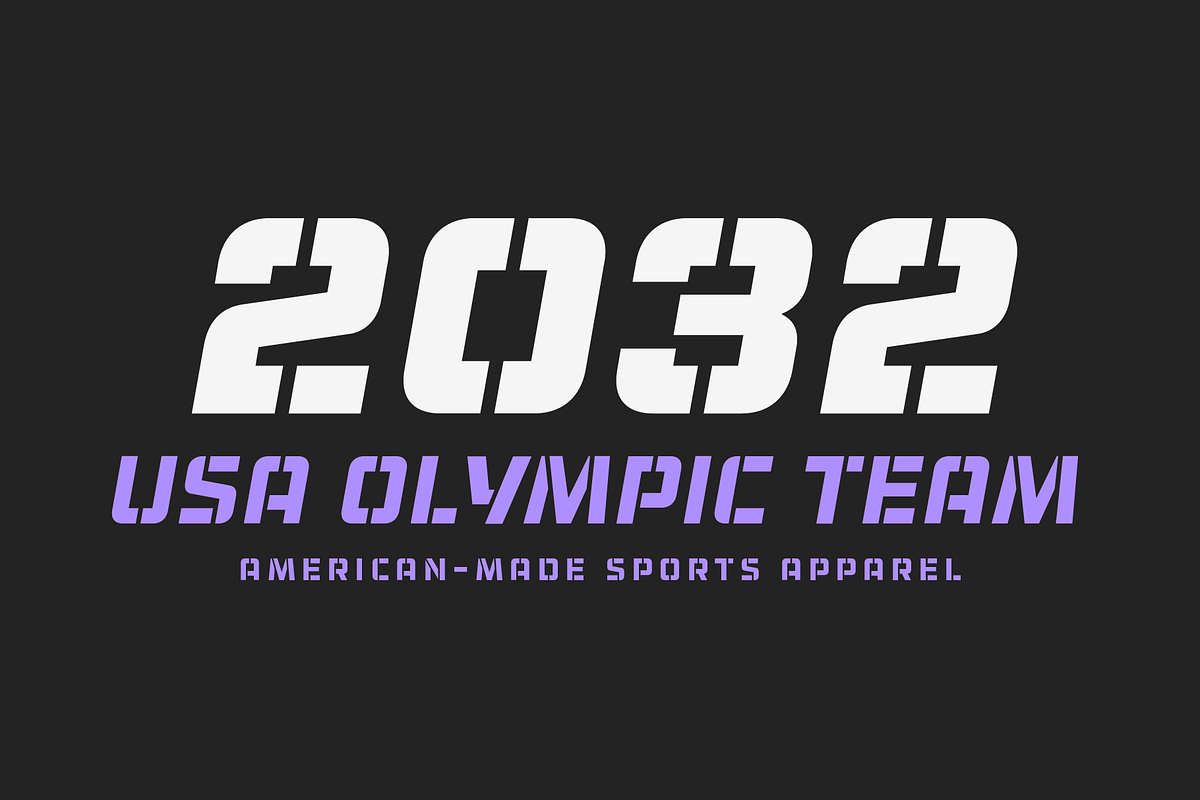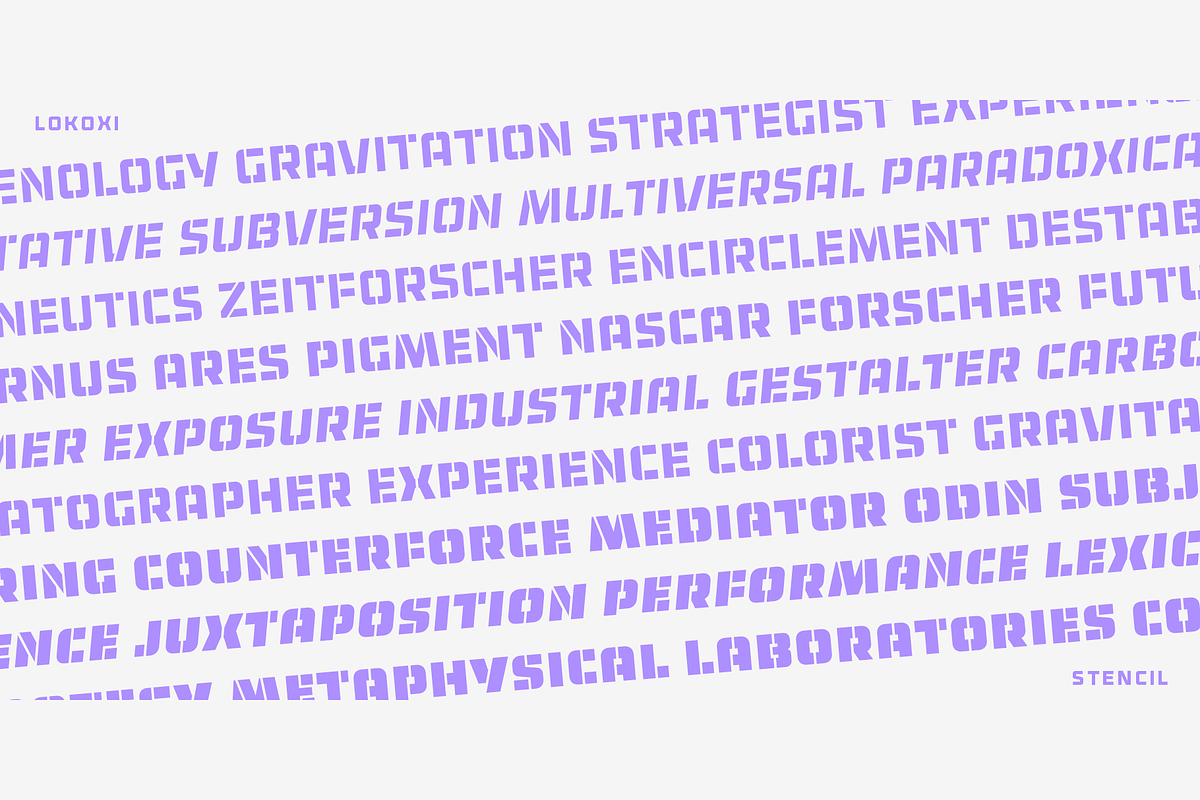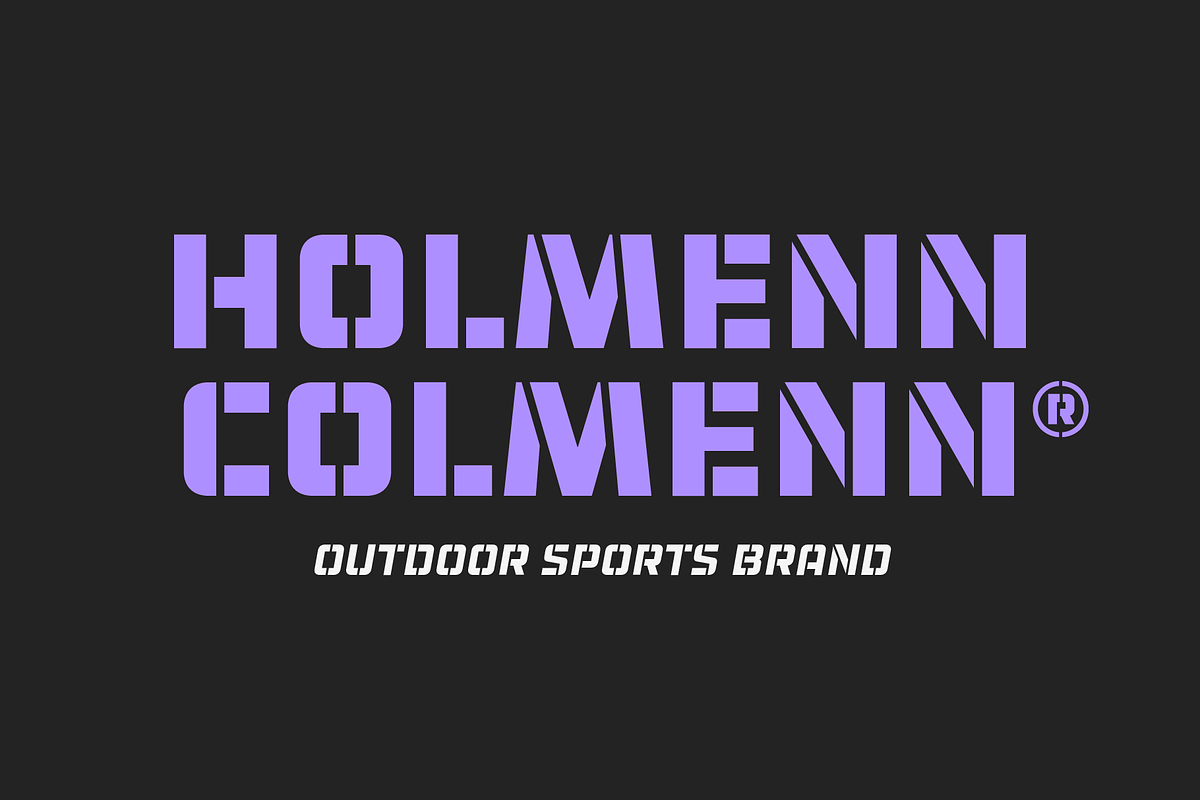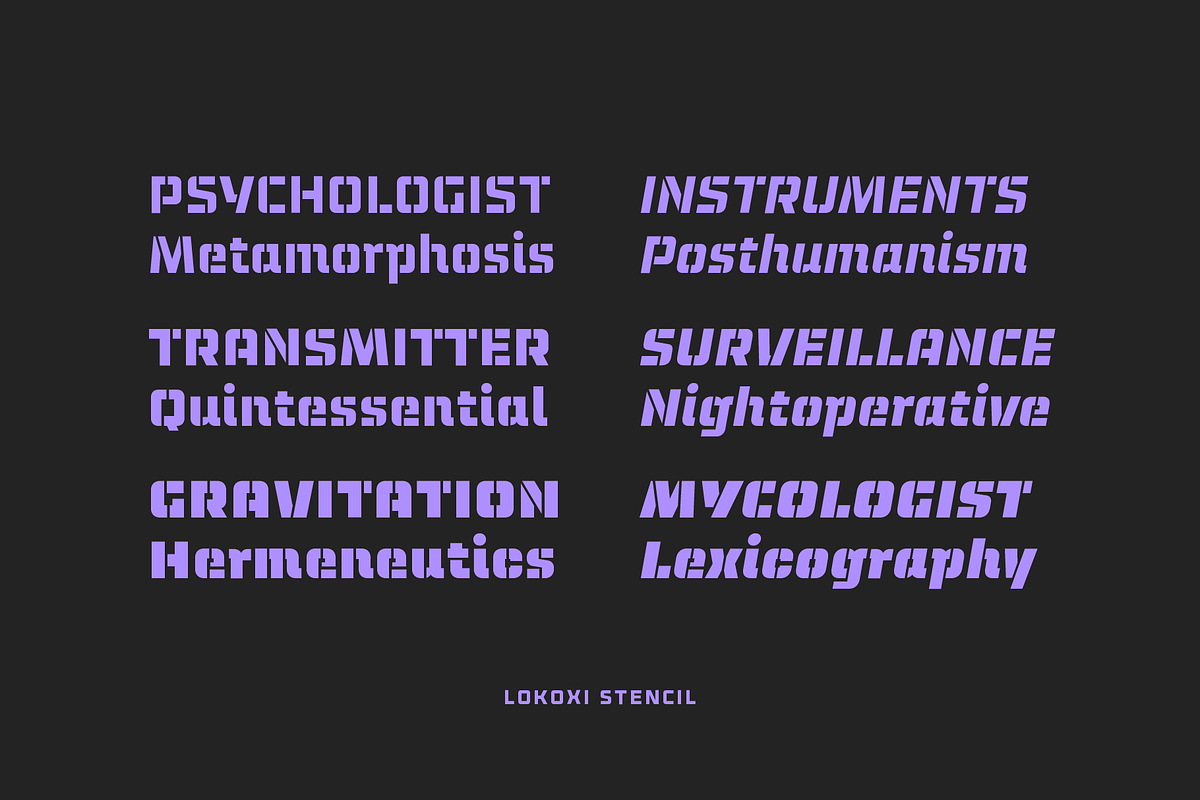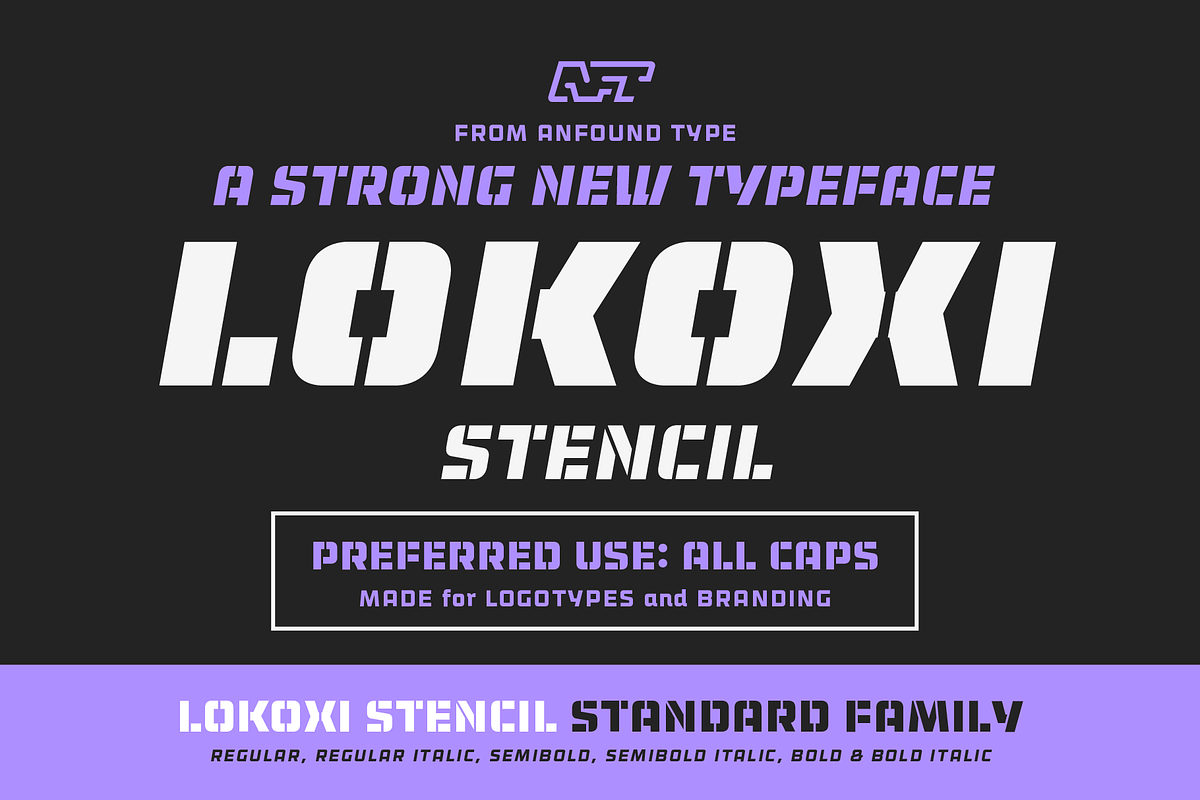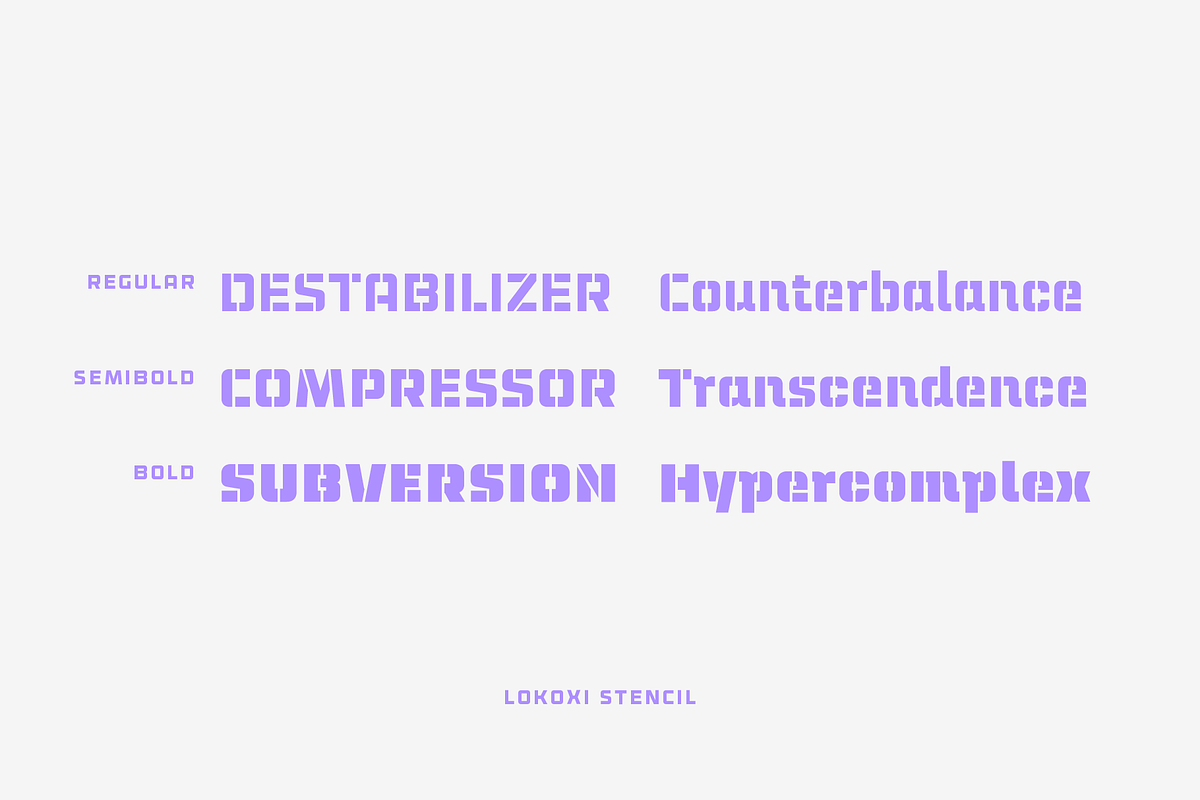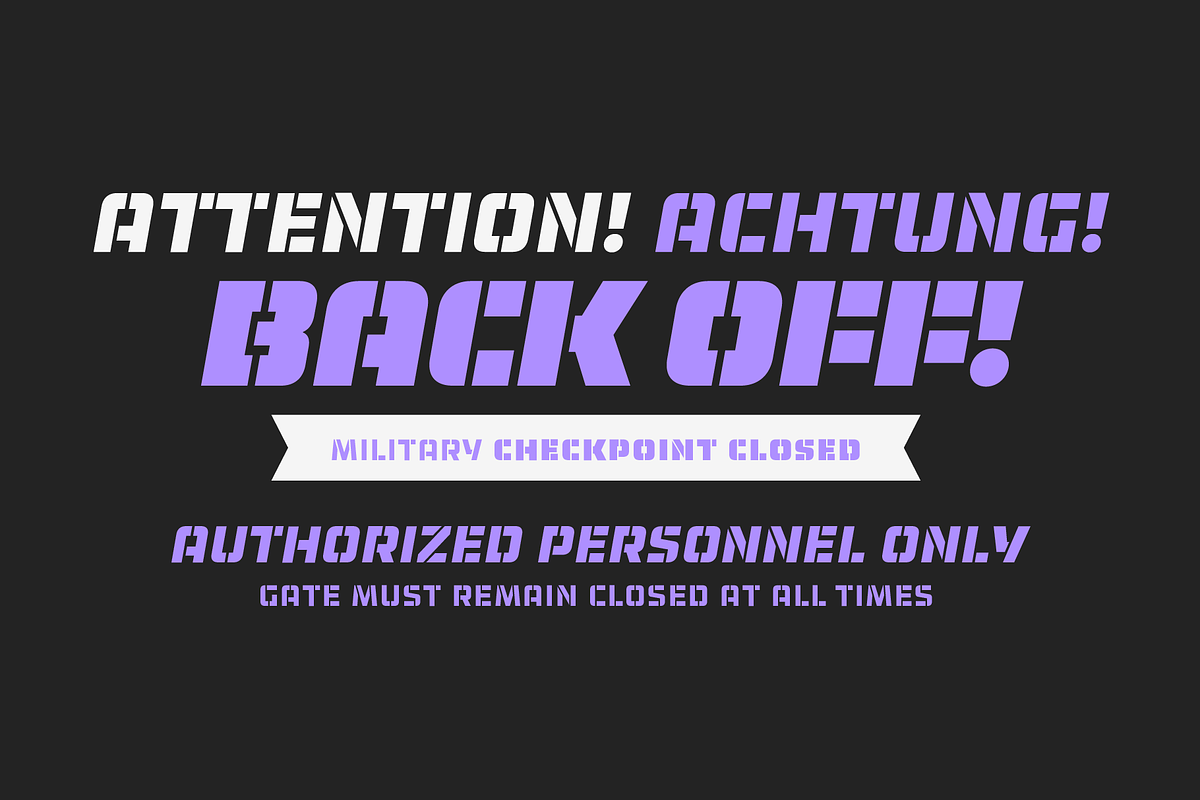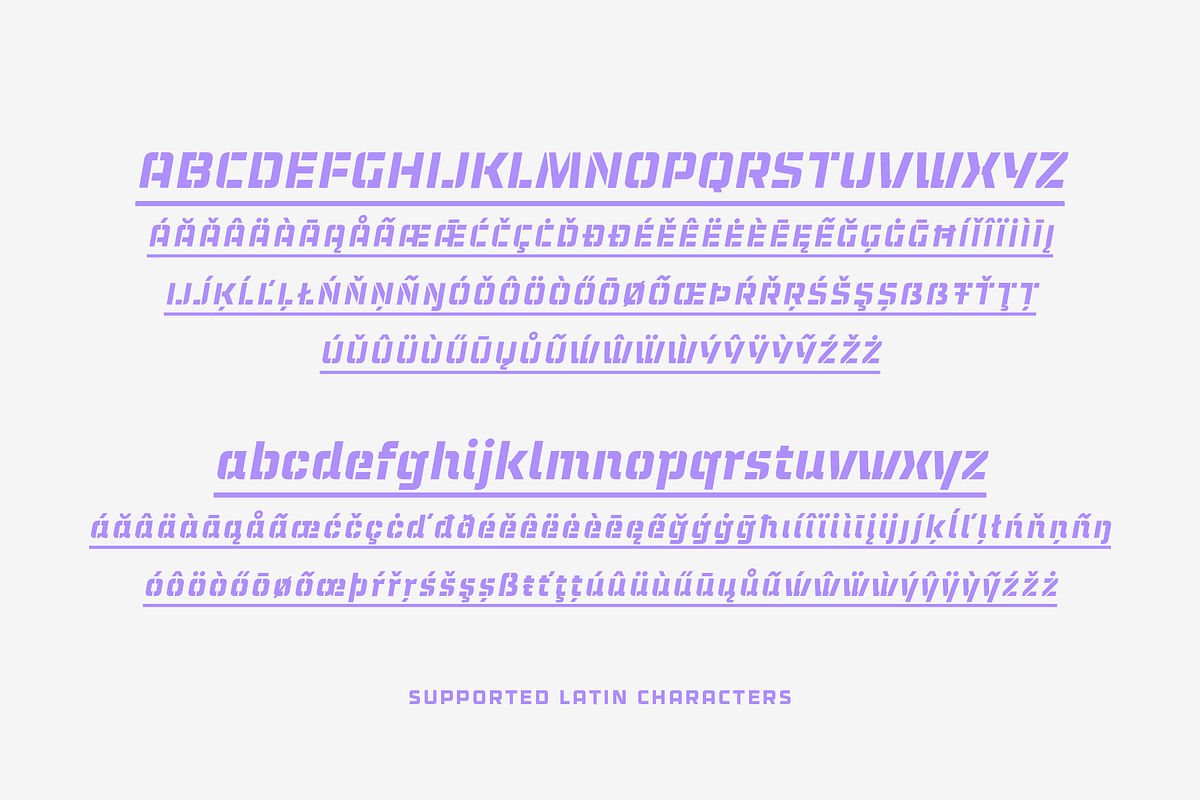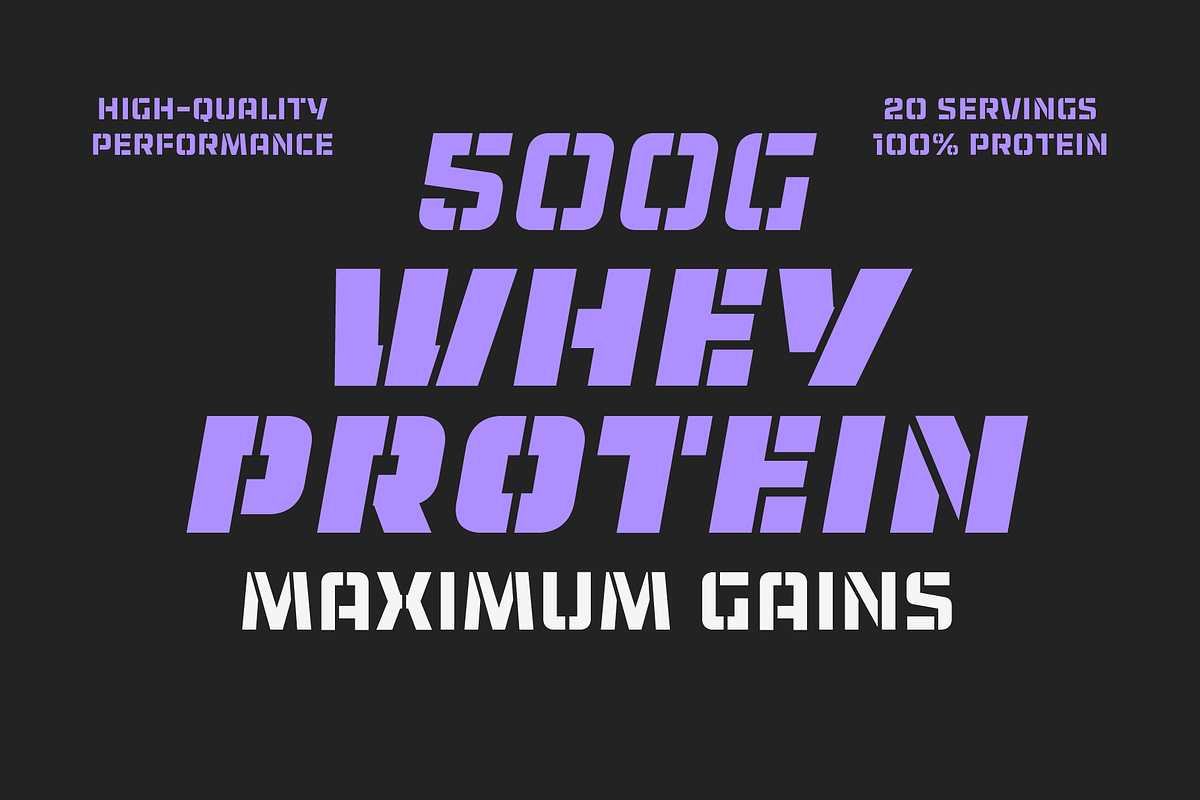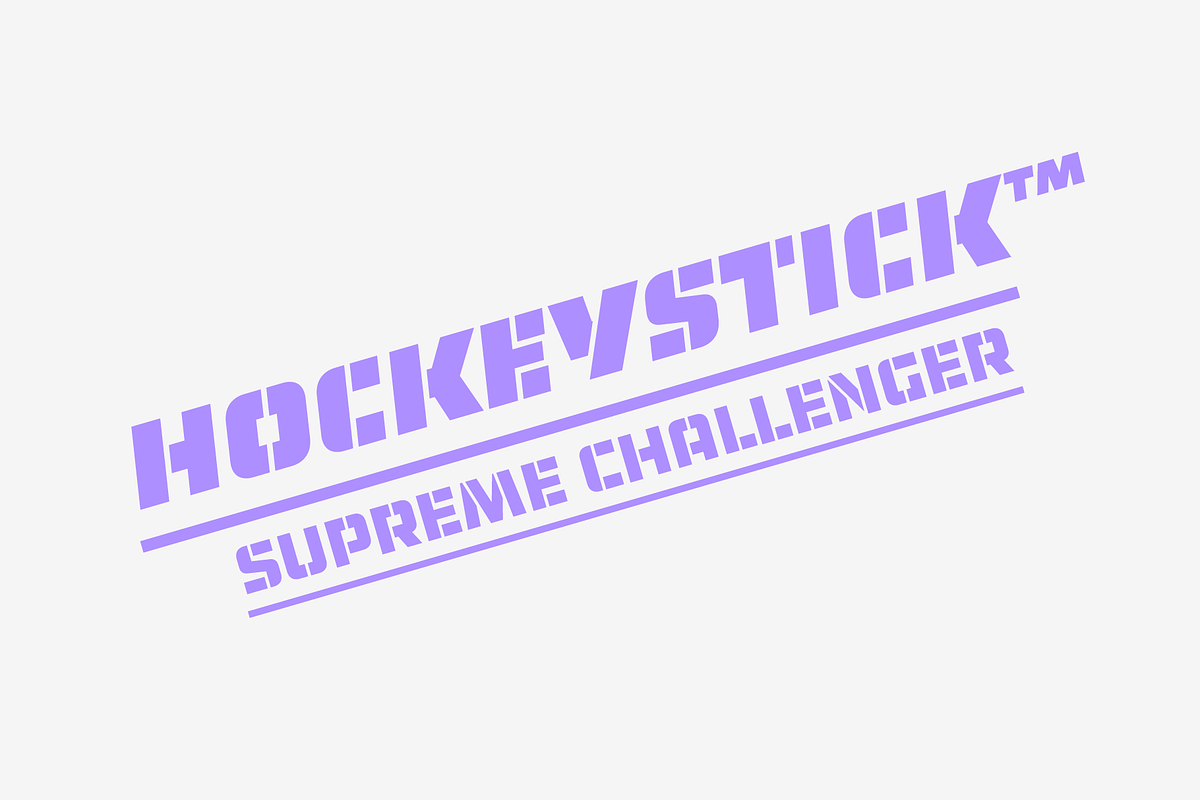
Lokoxi Stencil - Standard Family
Lokoxi Stencil is a bold low-contrast display typeface crafted to turn heads. Designed especially for striking logotypes, branding, and packaging, it brings a confident, contemporary edge to any visual identity. Heavy by nature and best used in all caps, Lokoxi Stencil is built to make a strong first impression.
The complete family includes roman, slanted italic, and rounded variants, along with alternate characters for the euro sign, registered and published marks, and German ß. The Pro version also adds basic Cyrillic support. With 380 glyphs plus 80 additional Cyrillic glyphs in the Pro version, bringing the total to 460 glyphs. Lokoxi Stencil is ready for everything from loud branding to standout packaging.